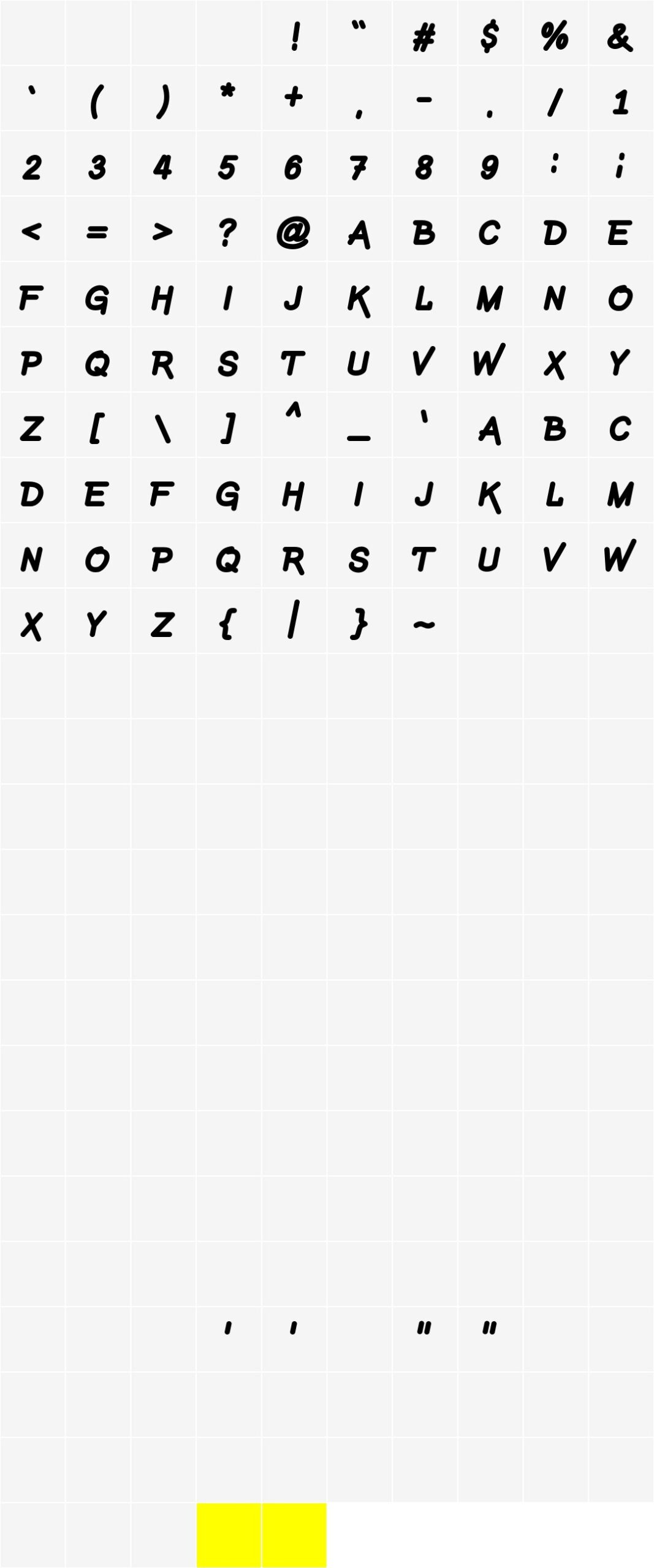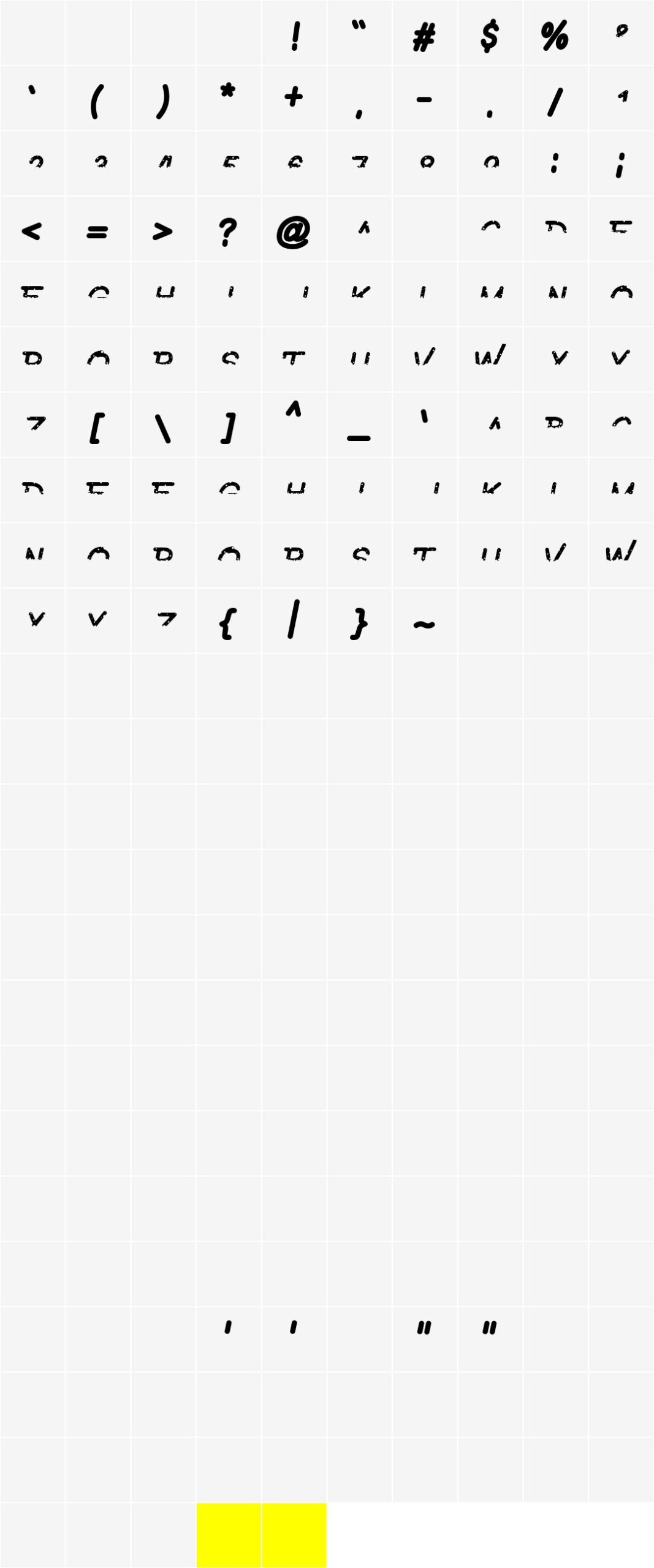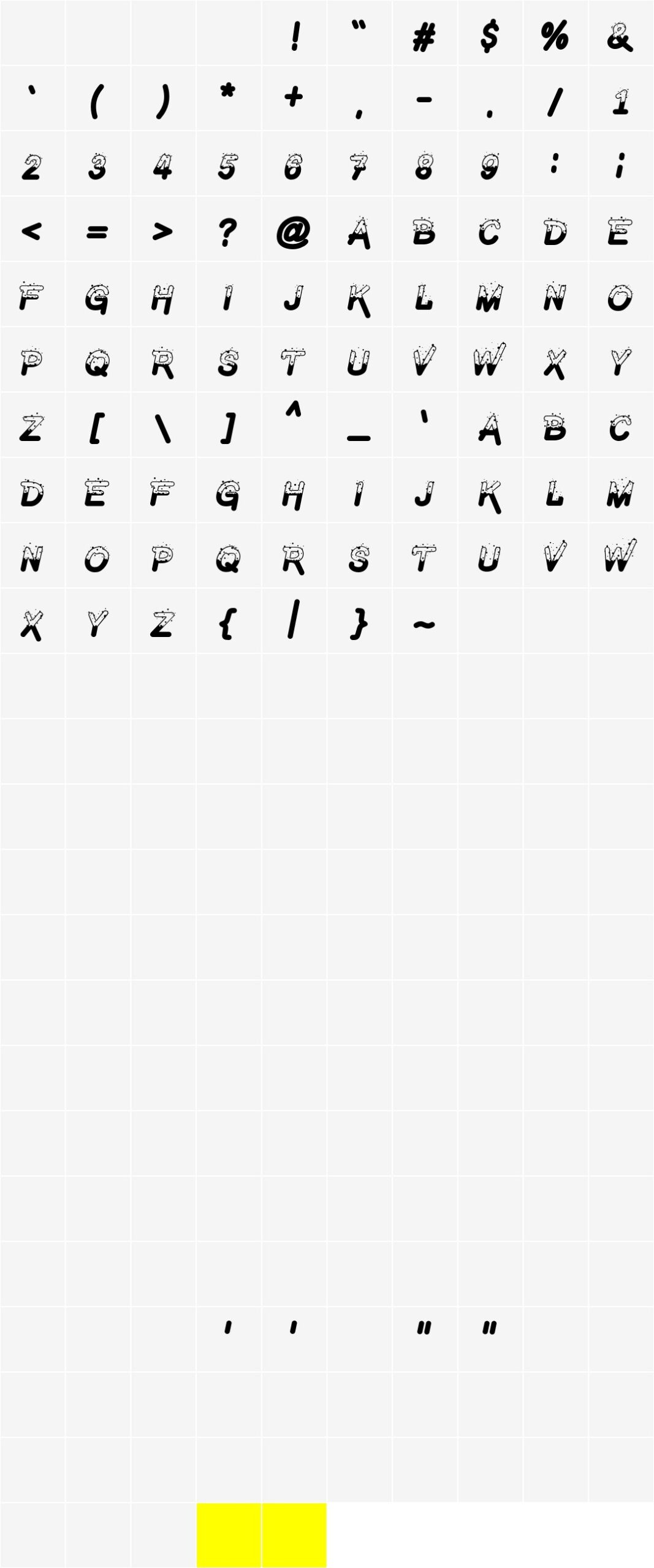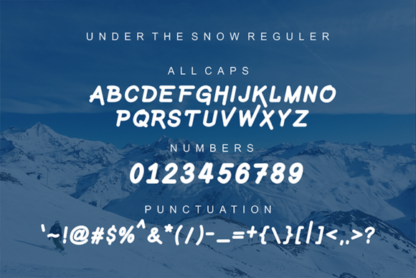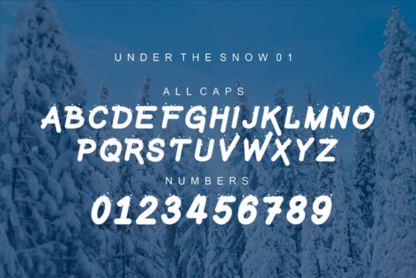
Under the Snow Layered Typeface Font
Under The Snow is a simple layered font inspired by the uniqueness of the snow. It includes 3 fonts + 1 layered inner font. Under The Snow is great in any branding, posters designs, and your upcoming winter stuff.